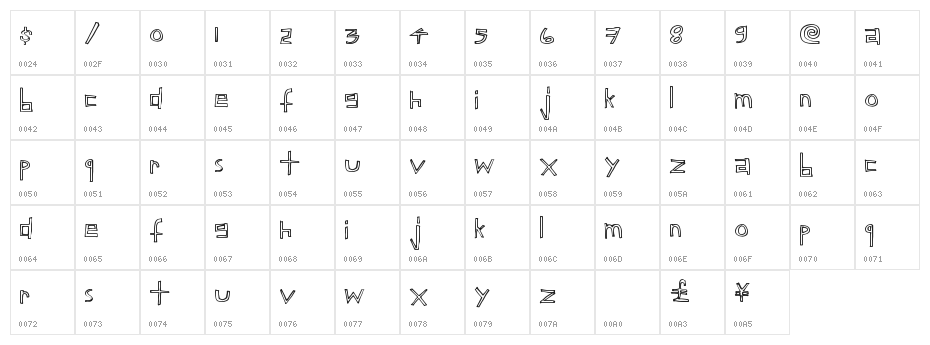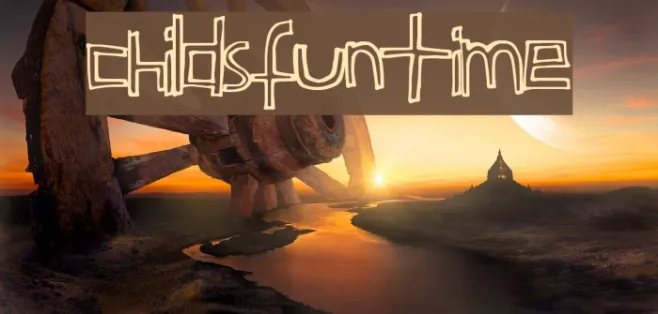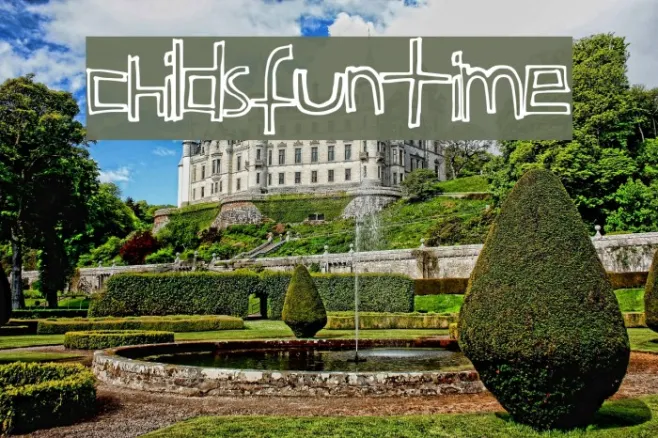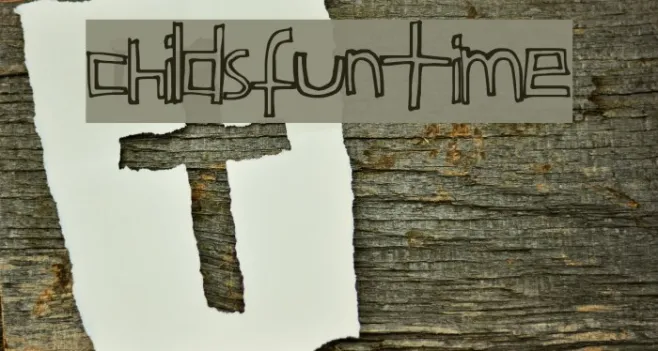
ChildsFuntime Font
ChildsFuntime Description
This playful and whimsical font features a hand-drawn style with a cartoonish flair. The characters are outlined with a bold, black stroke, giving them a distinct and lively appearance. The uppercase and lowercase letters maintain a consistent height, while the numbers and special characters follow the same playful design. The font's irregular shapes and quirky angles add a sense of fun and creativity, making it ideal for projects aimed at children or those seeking a lighthearted touch.
| Proposed Projects | Ideal for children's books, educational materials, playful branding, and creative posters. |